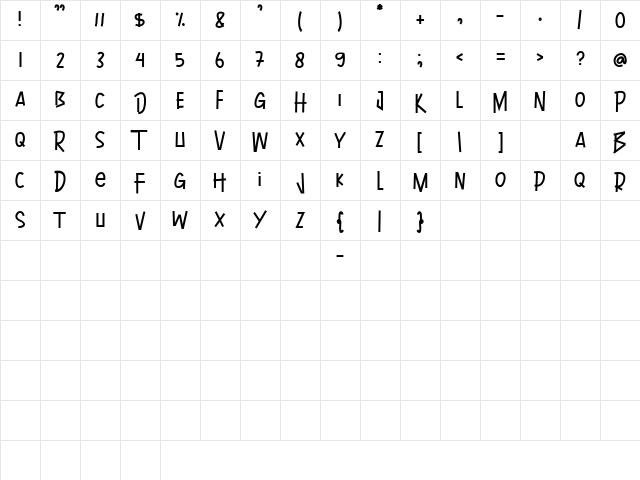
Skateboy Regular Free Font
Skateboy Regular
Designer: Letterday Studio
Design Context for Skateboy
Skateboy is a composed and adaptable typeface that performs quietly and consistently across a wide range of design contexts.